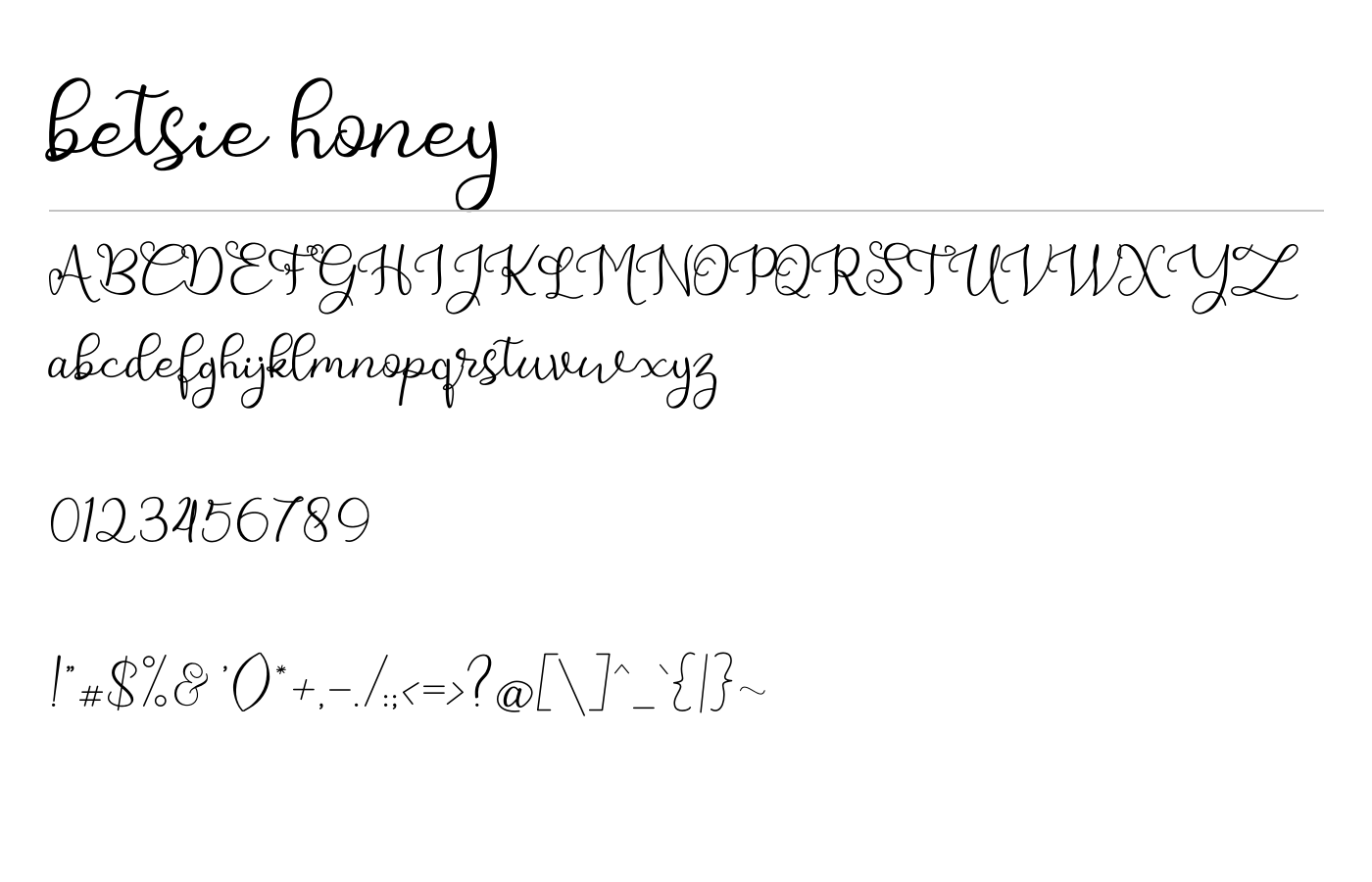
Betsie Honey is a delicate, whimsical script font with thin, flowing strokes and charming loops that create a handwritten, elegant feel. Its lightweight and airy design make it perfect for adding a personal, feminine touch to invitations, branding, and decorative text. This font works best where a soft, graceful style is desired, such as in wedding materials, boutique logos, or editorial accents.
betsie honey Font
About betsie honey Font
| Font family | betsie honey Font |
| Designer | Raditya Putra Pratama - Raditya Type Studio |